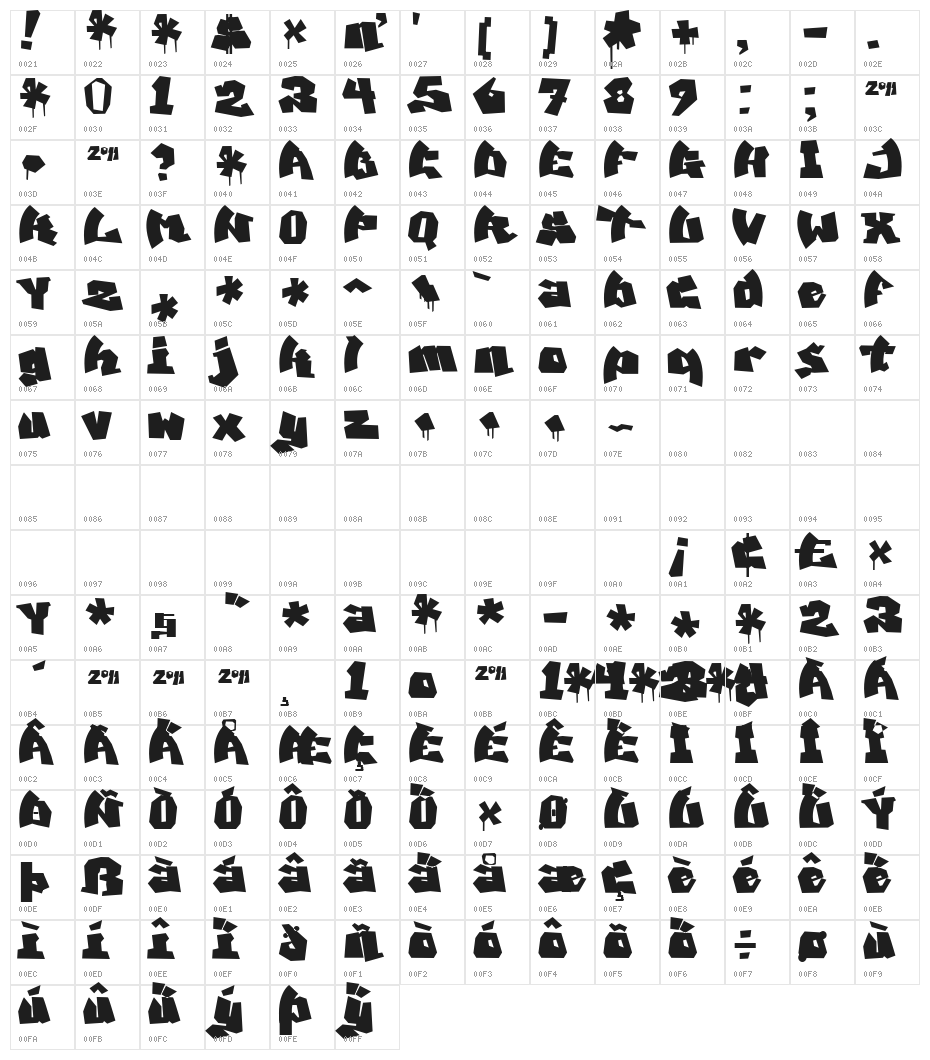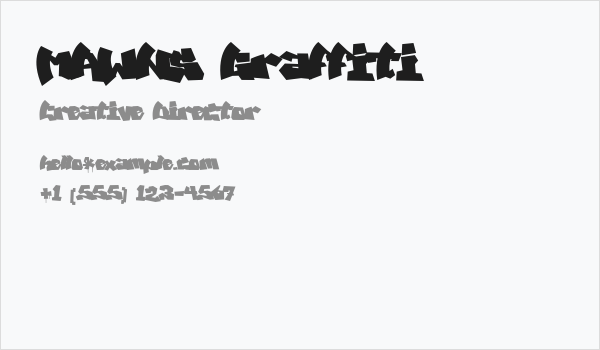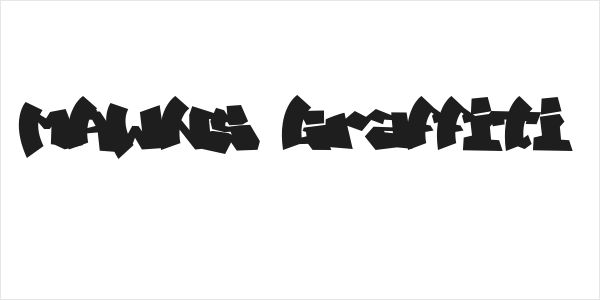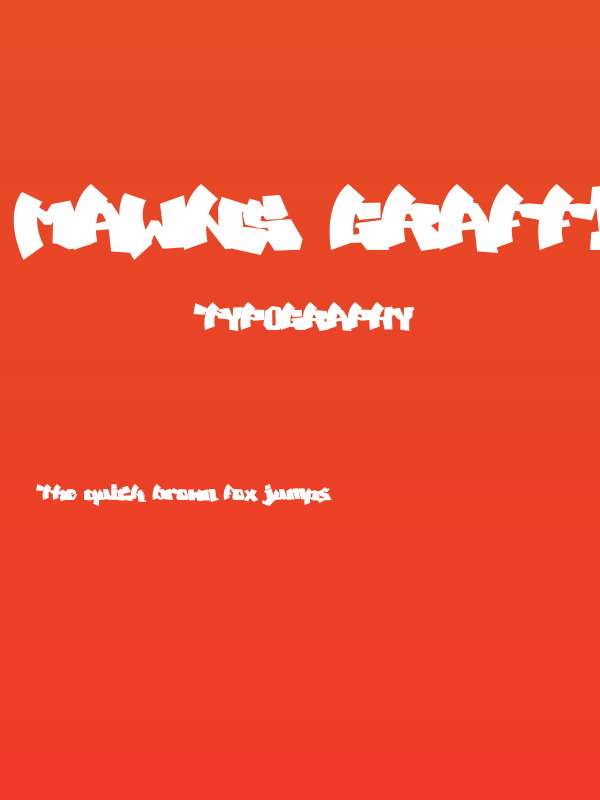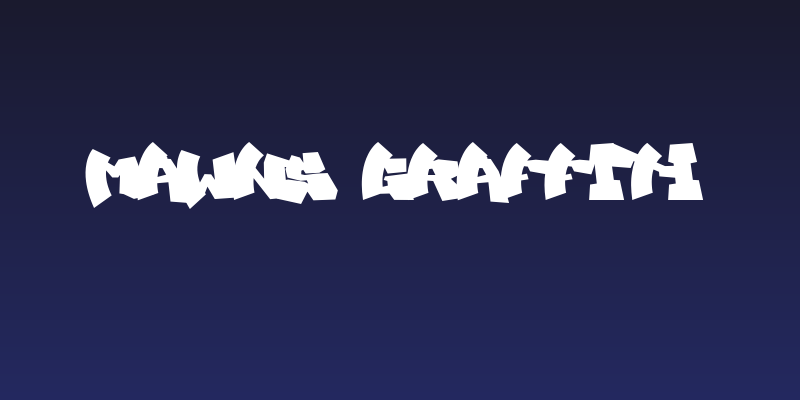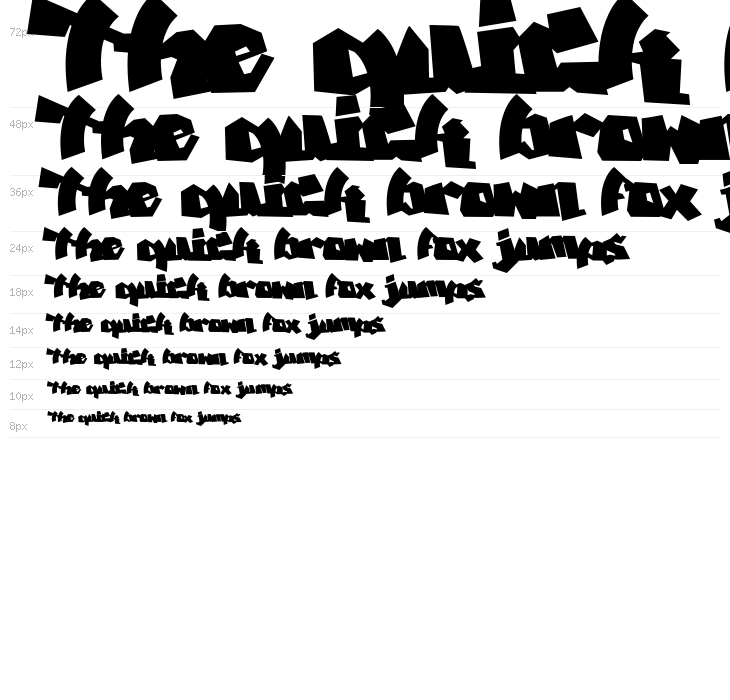
MAWNS Graffiti Font
MAWNS Graffiti Description
A bold, angular, and highly stylized font with a graffiti-inspired aesthetic, featuring sharp edges, irregular shapes, and a hand-drawn, urban feel. The characters are blocky and dynamic, with uneven baselines and exaggerated forms.
| Overall Style | Decorative, Urban, Graffiti |
| Proposed Projects | Street art posters, hip-hop album covers, urban event flyers, youth-oriented branding, skateboard graphics. |